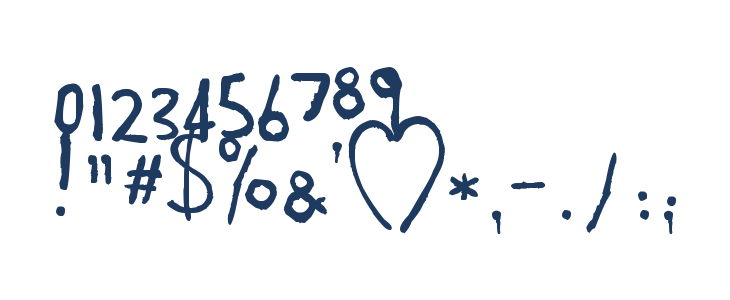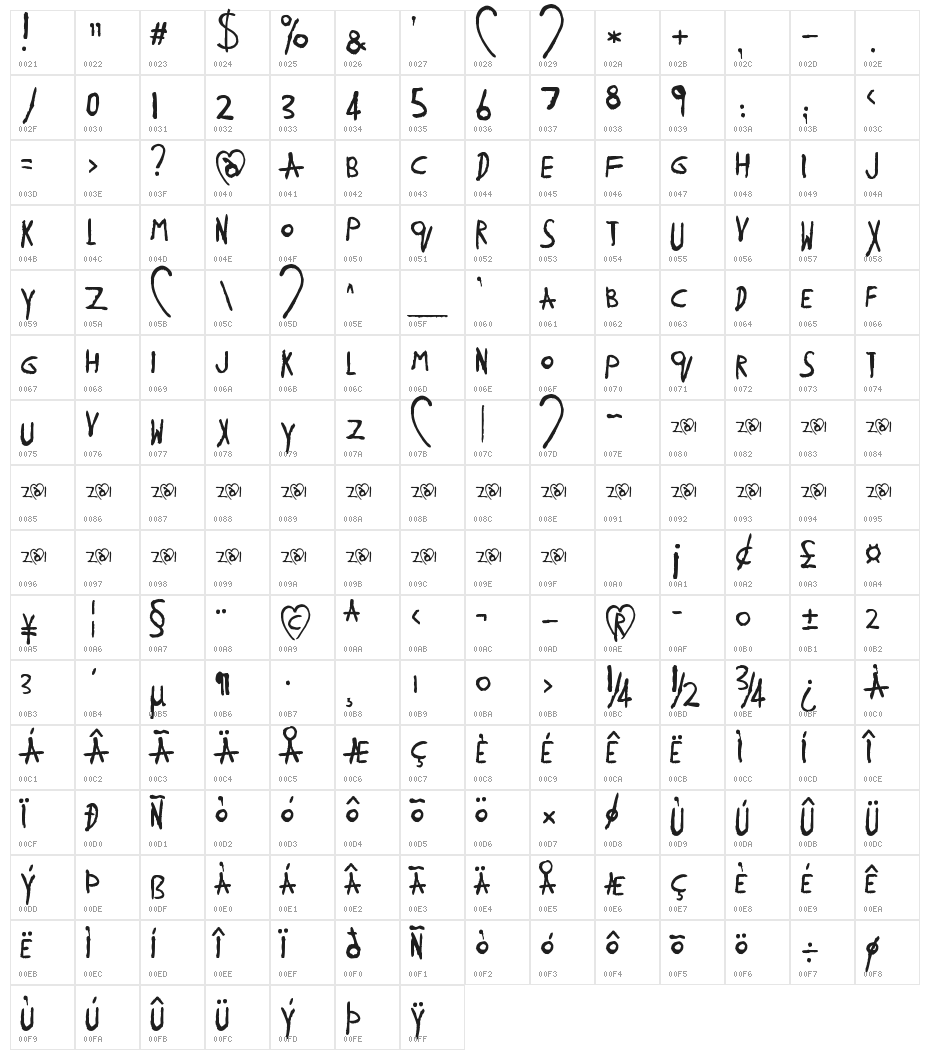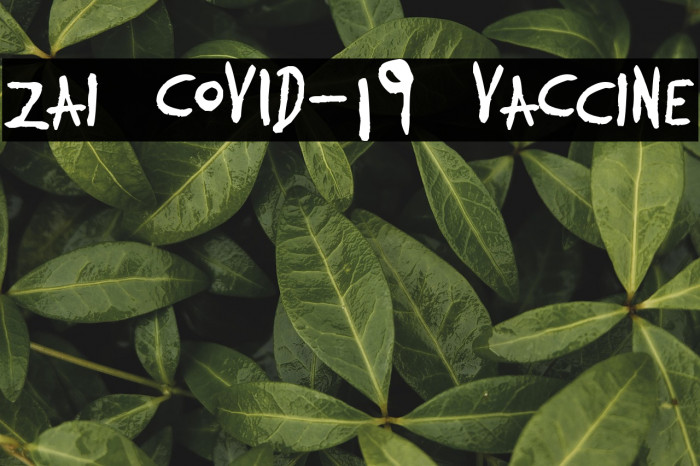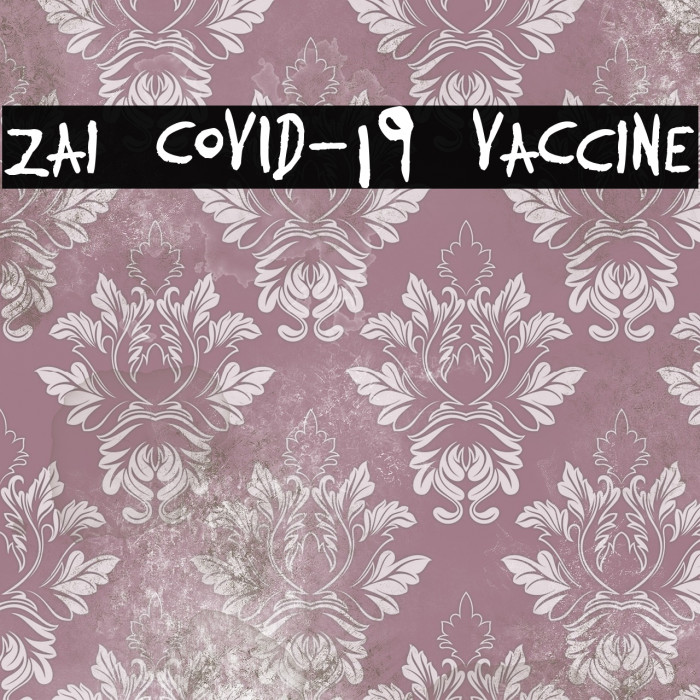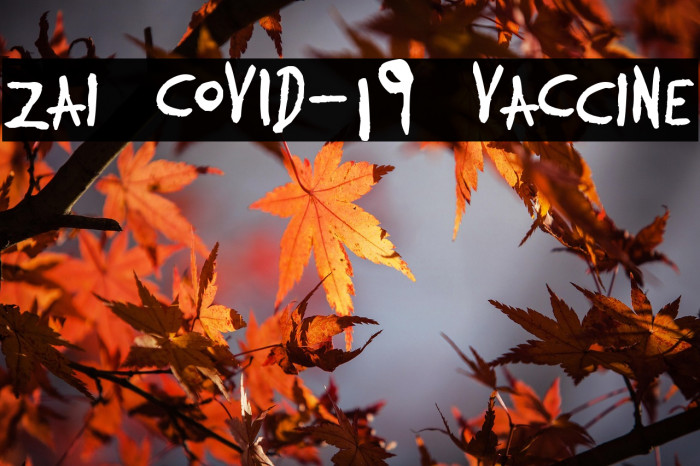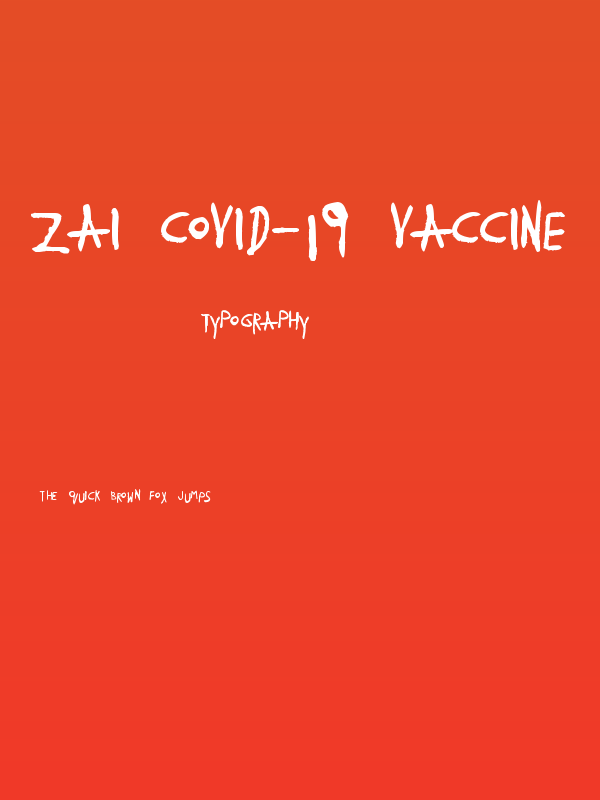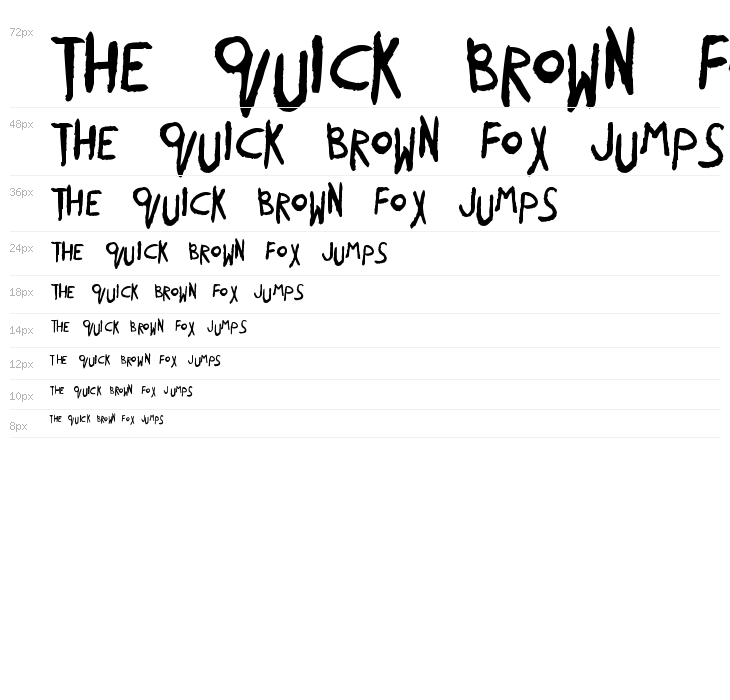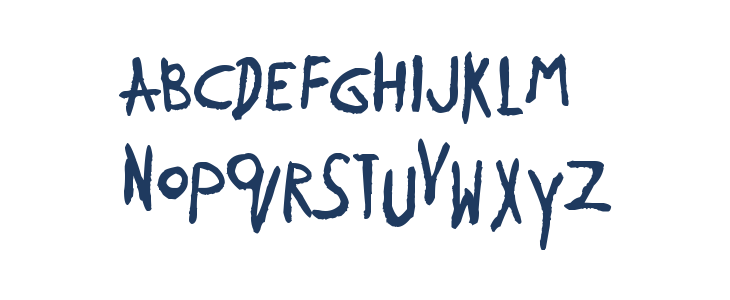
zai COVID-19 VaCcine Font
zai COVID-19 VaCcine Description
This font features a bold, hand-drawn style with a playful and energetic appearance. The characters are irregular and slightly rough around the edges, giving it a casual and informal feel. The uppercase and lowercase letters maintain a consistent height, while the numbers and special characters follow the same hand-crafted aesthetic. The strokes are thick and uneven, adding to the font's dynamic and lively character. This font is ideal for projects that require a personal touch or a sense of spontaneity.
| Proposed Projects | Great for posters, children's books, casual branding, and creative projects that need a lively touch. |